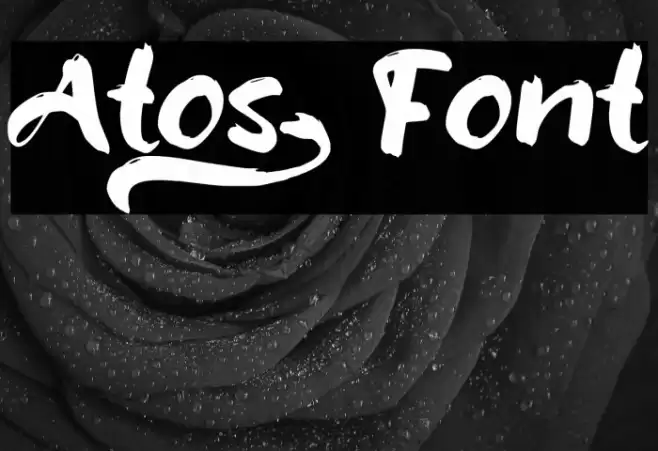
Atos_ Font
Atos_ Description
This font exhibits a bold and expressive handwritten style, characterized by its fluid and dynamic strokes. The letters are crafted with a brush-like appearance, giving them a lively and energetic feel. The uppercase and lowercase letters maintain a consistent style, with rounded edges and varying stroke thickness that adds to the font's playful nature. Numbers and special characters are equally expressive, ensuring a cohesive look across all text elements. The font's design is both artistic and legible, making it suitable for creative projects that require a personal touch.
A bold, expressive handwritten font with dynamic, brush-like strokes from Uncategorized fonts.
- Proposed Projects: Ideal for greeting cards, posters, branding, and social media graphics that require a personal and artistic flair.